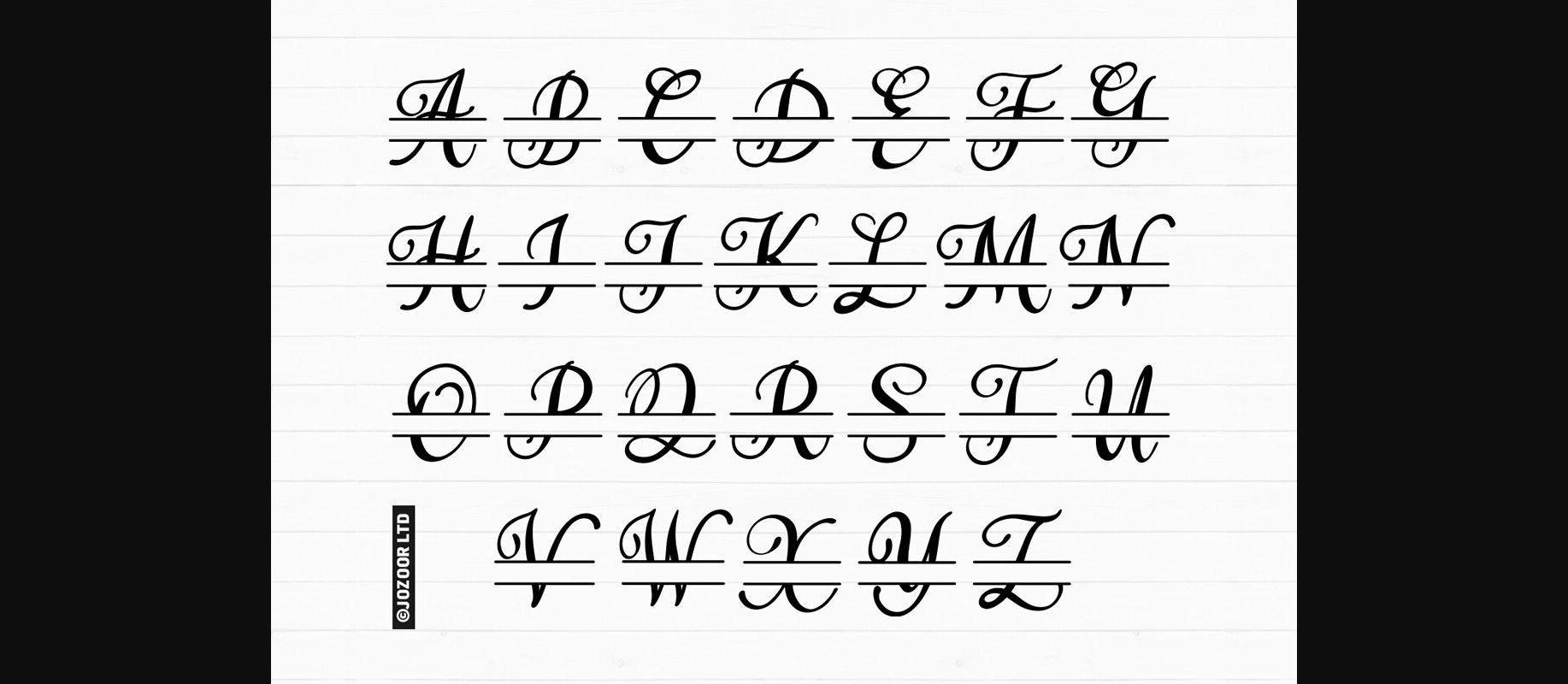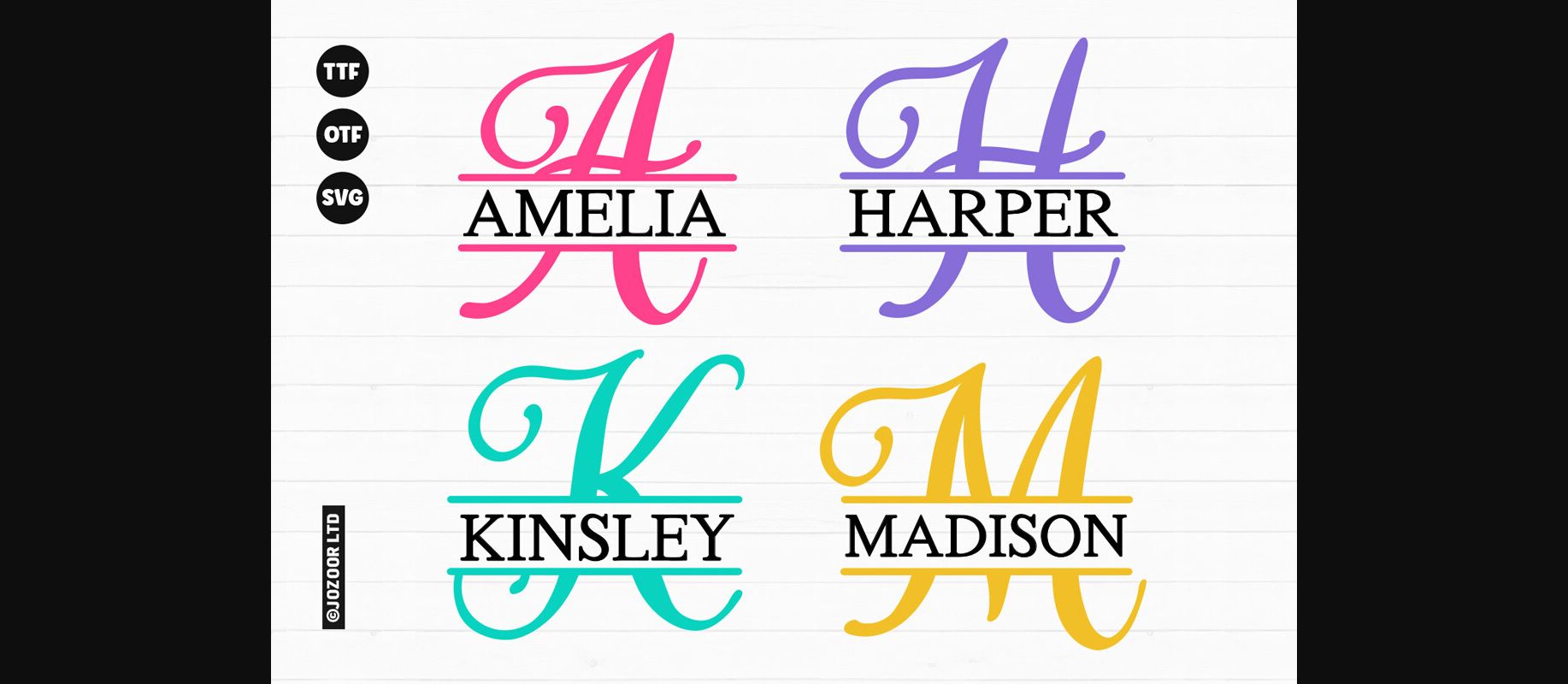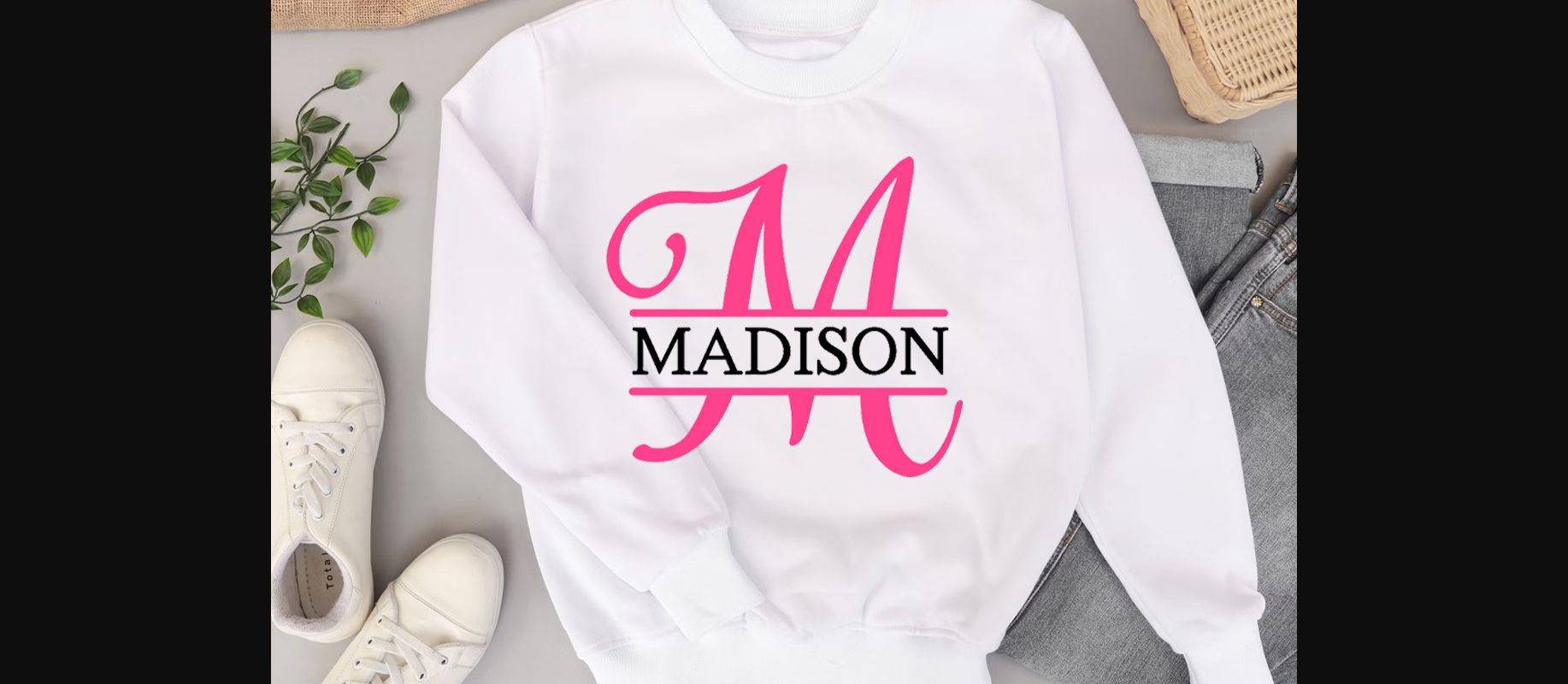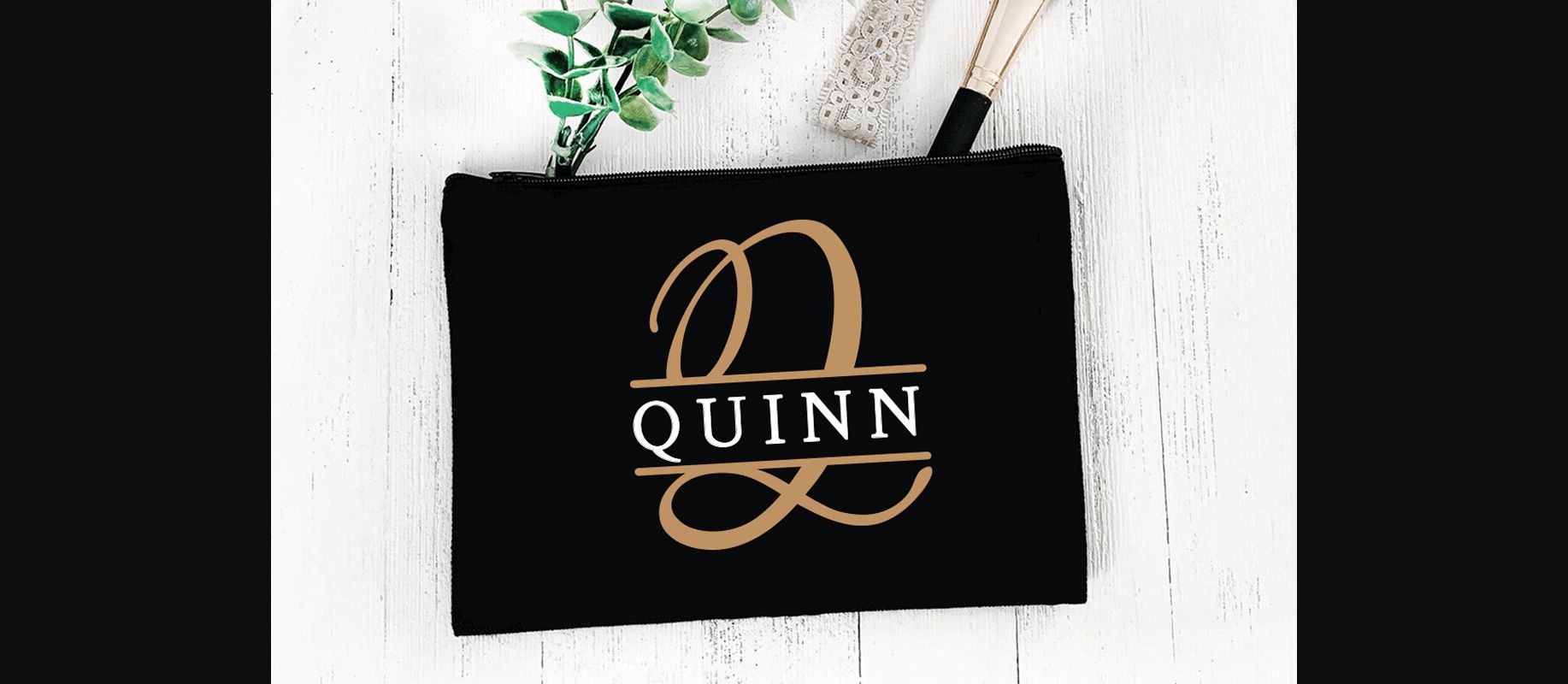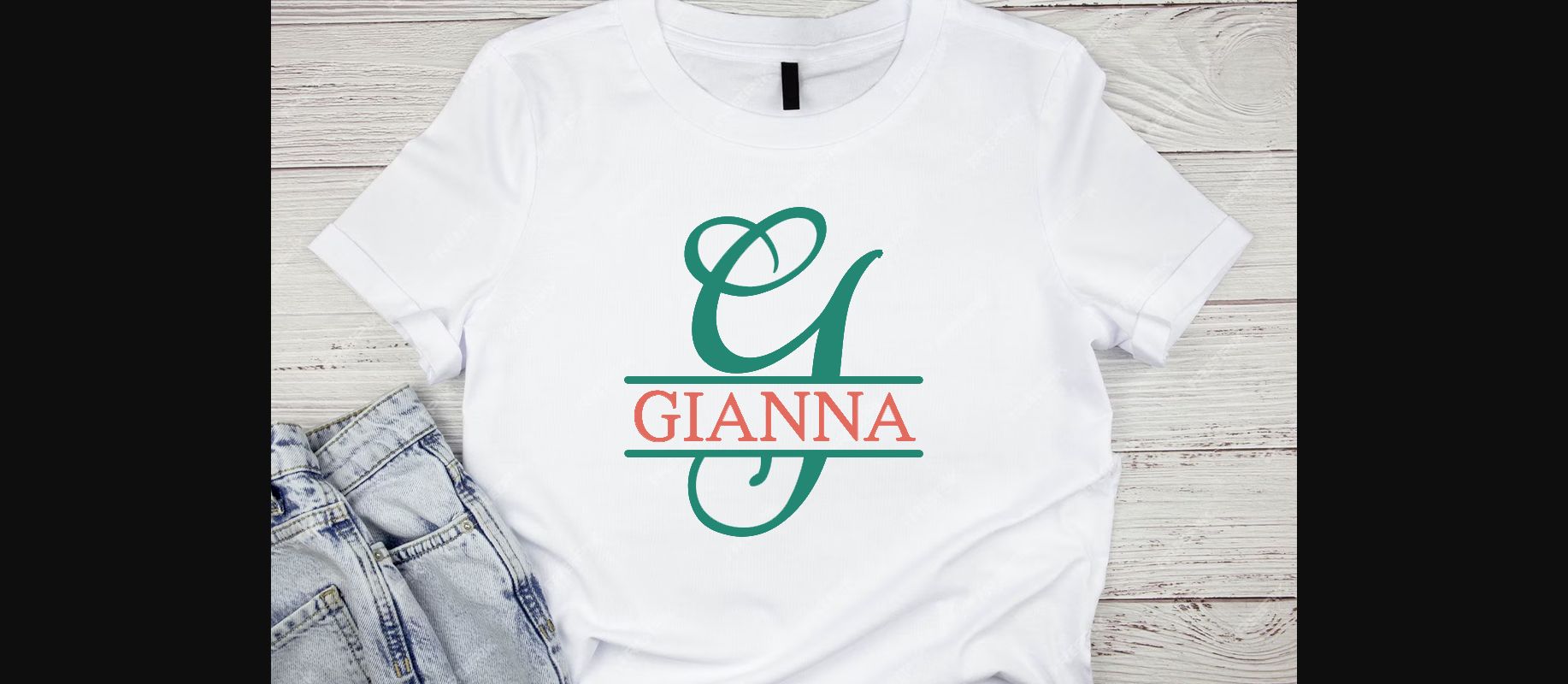
Amelia Split Font
About Amelia Split Font
Amelia Split Monogram is a cute decorative font with an amazing look. Fall in love with its authentic feel and use it to create gorgeous wedding invitations, beautiful stationary art, eye-catching social media posts, and cute greeting cards.